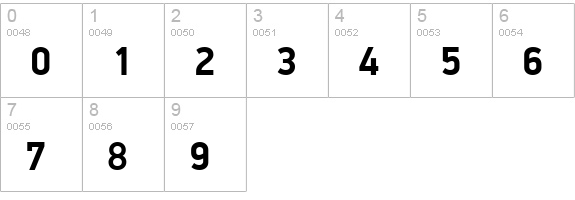
PFDinDisplayPro-Bold Font Details
PFDinDisplayPro-Bold is a strong, high-contrast variant in the PFDinDisplayPro typeface family \xE2\x80\x94 well suited to headlines, attention-grabbing titles, and strong calls-to-action.
PFDinDisplayPro-Bold is a striking and bold display font that demands attention with its strong and powerful appearance. Perfect for titles, headlines, and branding projects, this font exudes confidence and modernity. With its clean lines and sleek design, PFDinDisplayPro-Bold effortlessly conveys a sense of professionalism and sophistication. The best part? PFDinDisplayPro-Bold is available for free download at FontsMarket.com. This means you can easily access and use this impressive font in your design projects without any cost. Don't miss out on the opportunity to enhance your creations with the impactful style of PFDinDisplayPro-Bold. Download it today and take your designs to the next level!